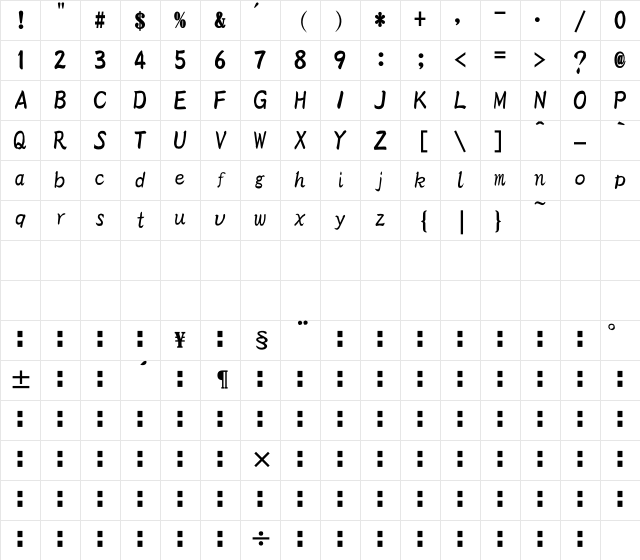
A_KsoKaisho Regular
Design Context for A_KsoKaisho
A_KsoKaisho is a composed and adaptable typeface that performs quietly and consistently across a wide range of design contexts.
Pro Tip: Use A_KsoKaisho in both headline and body roles to test its range before committing to a single application.